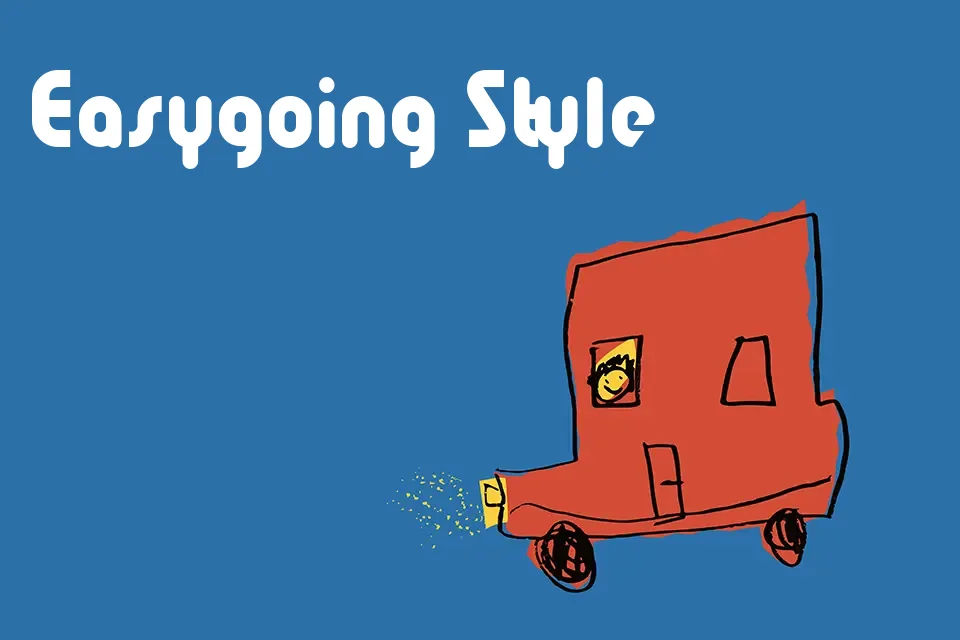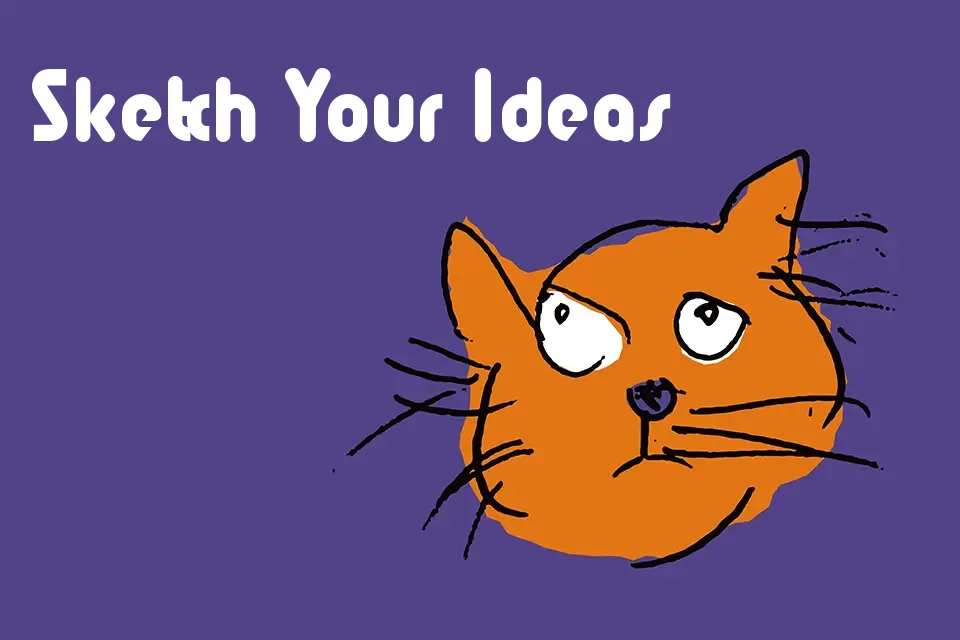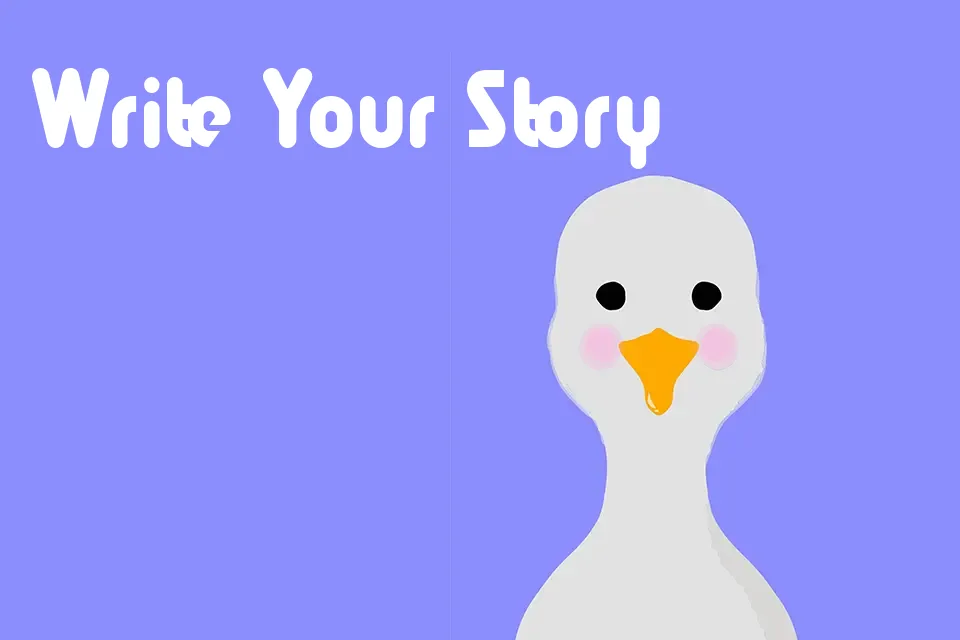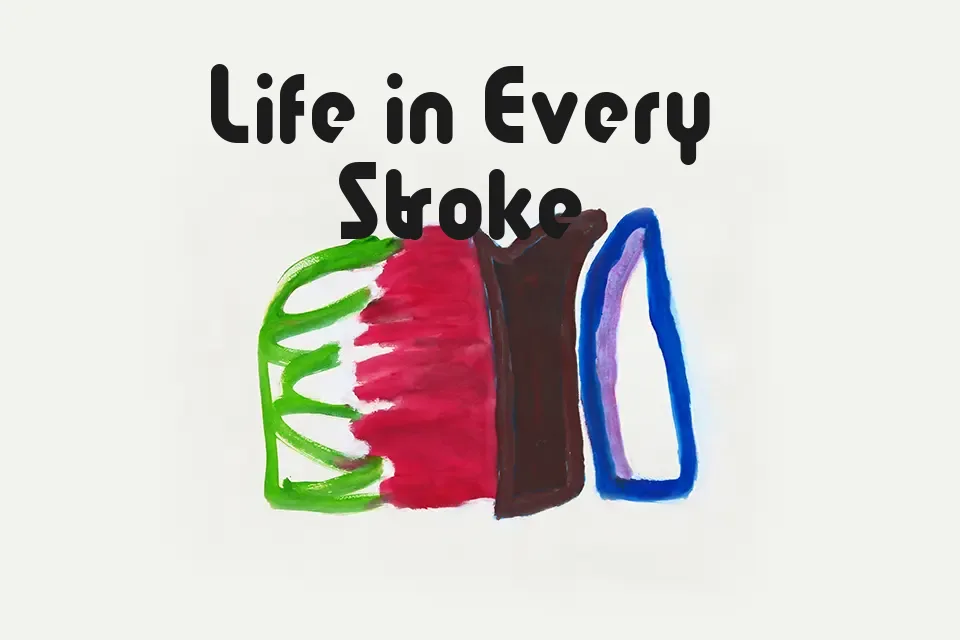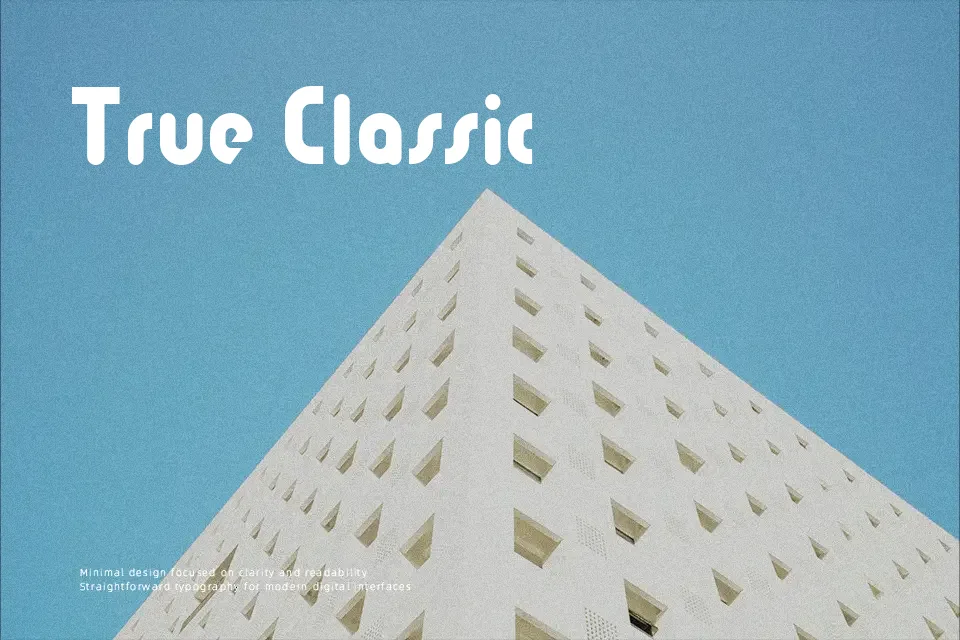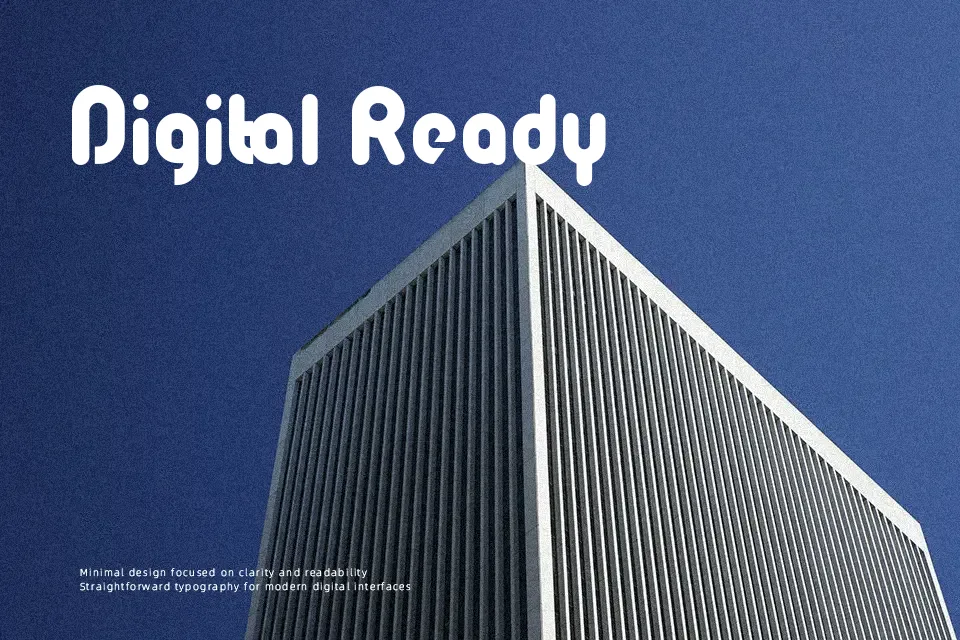
Pollyanna Font
The visual structure of Pollyanna Font relies on uniform, rounded strokes that create a highly approachable and friendly appearance. Its letterforms feature balanced spacing and casual proportions, making the typography feel natural and unpretentious across various applications. The smooth terminals and consistent stroke weight ensure excellent readability in medium display settings, such as children’s apparel graphics or cheerful packaging designs. The generous curves help maintain clarity in larger headlines. However, the slightly wider proportions and playful nature make it less suitable for long paragraphs. Dense text blocks may reduce continuous reading comfort, as the casual letterforms thrive best when given room to breathe in shorter, impactful statements.
Best For: children’s apparel graphics, cheerful product packaging, casual website headlines, toy brand logos
Not Ideal For: long paragraph text, corporate reports, small interface labels, technical manuals
Perfect for branding, headline, and kids, with a cute and display style.